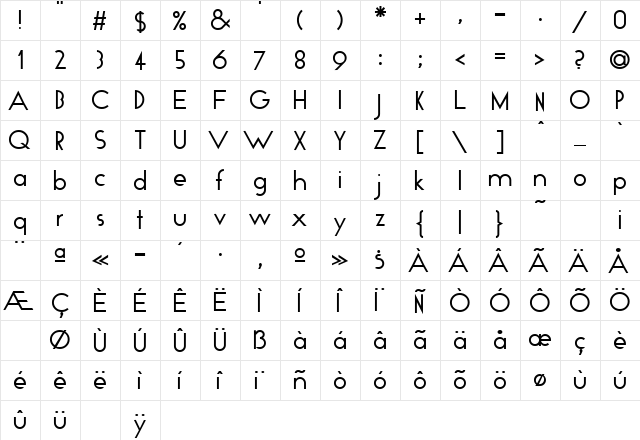
Pommarantz Lite REGULAR Regular Lite
Pommarantz Lite REGULAR offers clean, dependable letterforms without strong stylistic allegiance, making it a practical choice for designers who need flexibility.